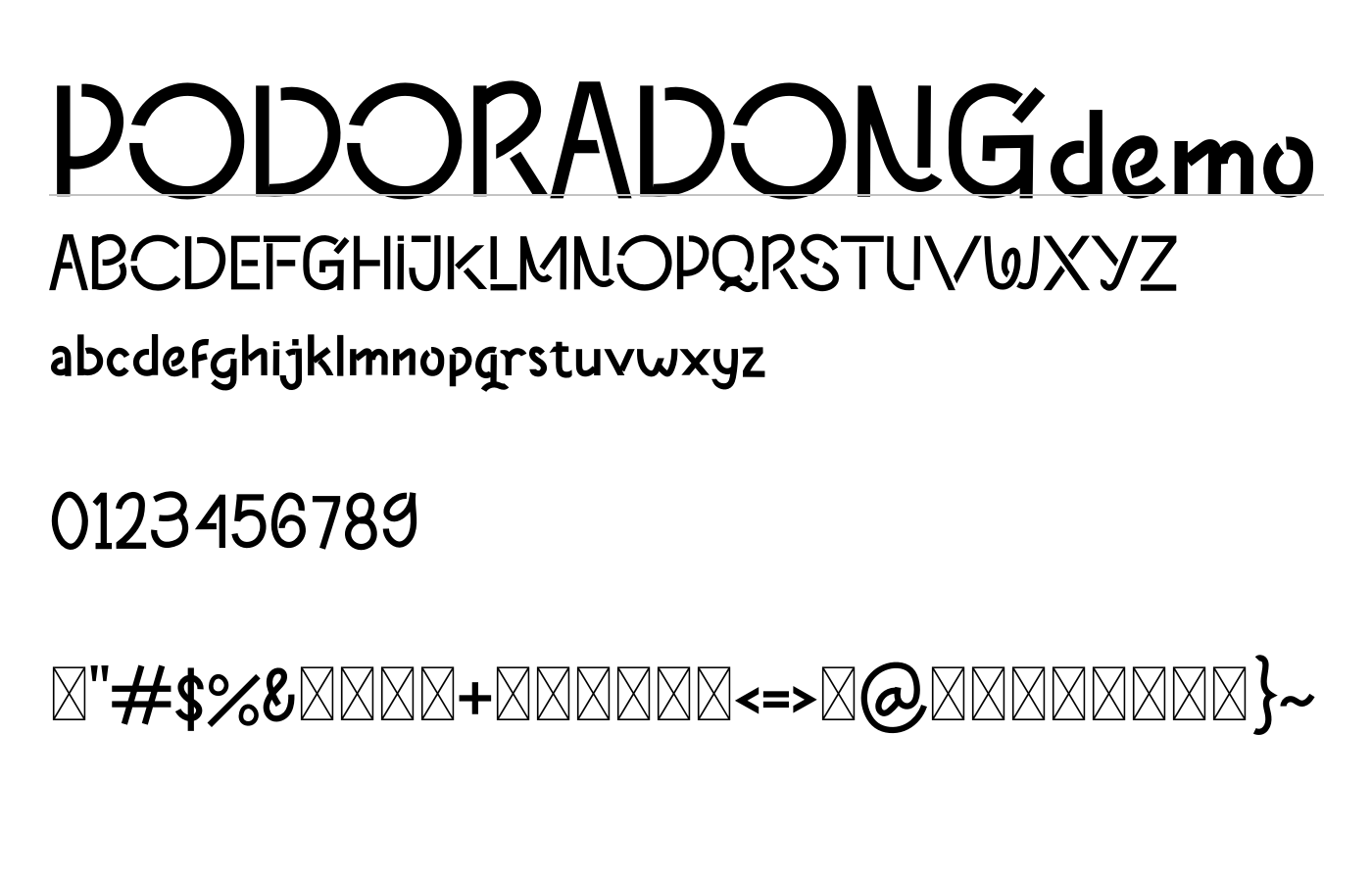
Podoradong is a unique sans serif font characterized by its playful geometric shapes and sharp, clean lines, giving it a modern yet artistic flair. Its high contrast and distinctive letterforms, such as the single-story ‘a’ and quirky details in characters like ‘Q’ and ‘G’, make it ideal for eye-catching headlines, logos, and creative branding projects that want to convey a contemporary, bold, and slightly whimsical personality. This font works best in designs needing a fresh, innovative look that stands out with character and style.
Podoradong Font
About Podoradong Font